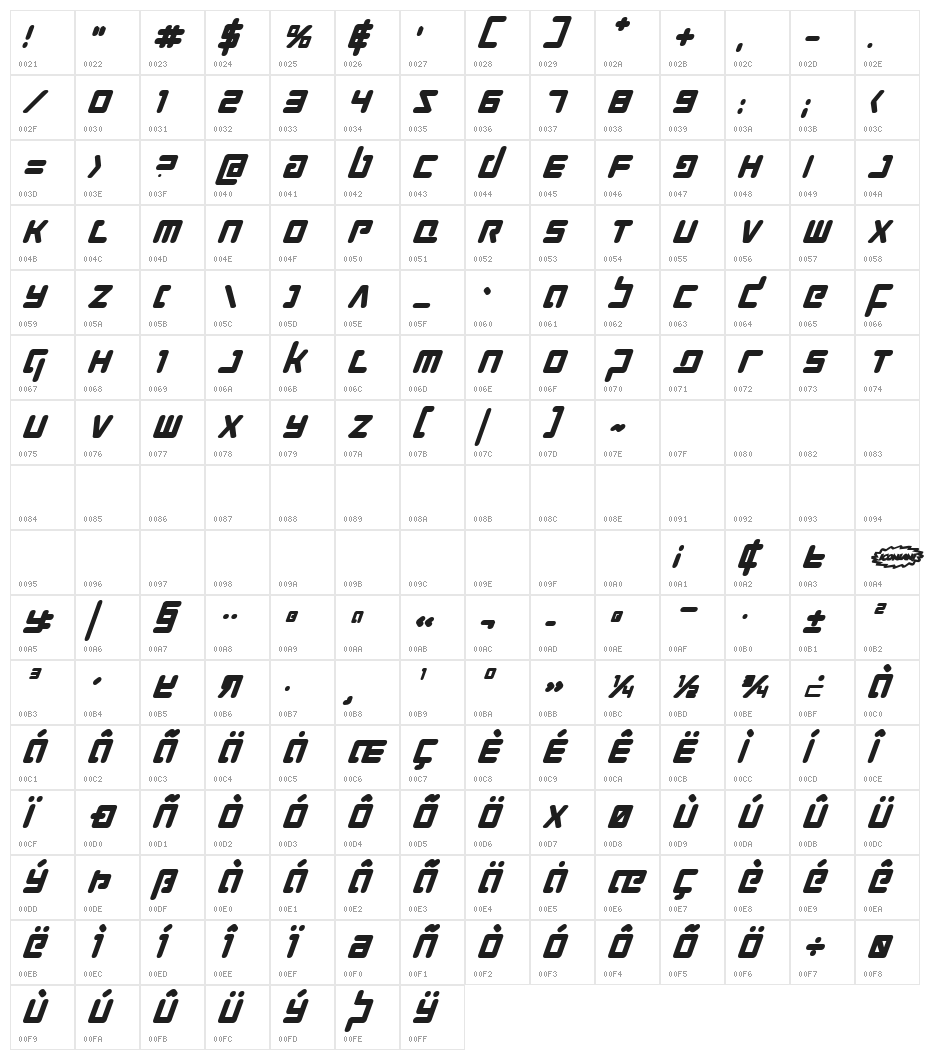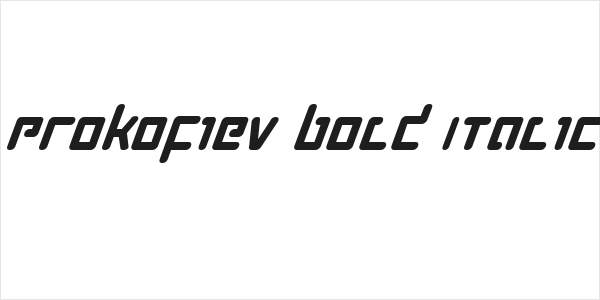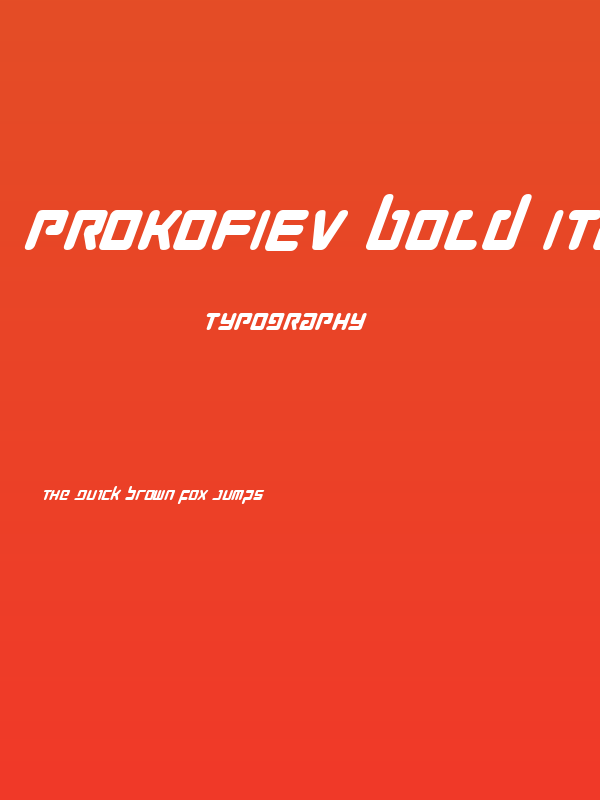
Prokofiev Bold Italic Font
Prokofiev Bold Italic Description
This font features a bold and italicized style with a modern and dynamic appearance. The characters are slightly slanted, giving a sense of motion and energy. The strokes are thick and consistent, providing a strong visual impact. The design is clean with a futuristic touch, making it suitable for contemporary projects. The letters are well-spaced, ensuring readability while maintaining a compact form. The numbers and special characters follow the same bold and italicized style, ensuring uniformity across all elements.